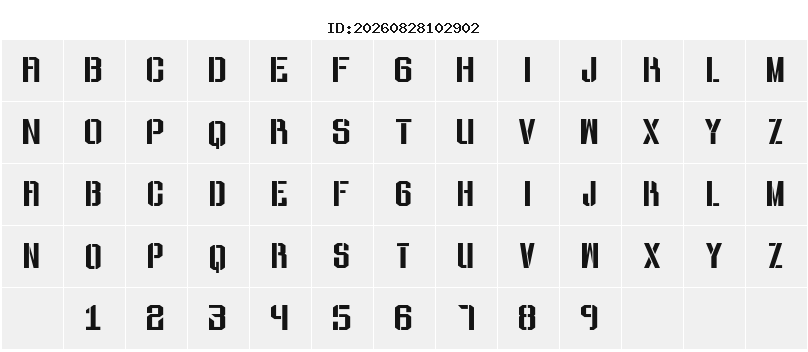
ToughGuy Preview
• Font Name: ToughGuy
• Font Style: Stencil
• Designer: Matthew Napolitano
About ToughGuy.otf
ToughGuy.otf is a modern, elegant sans-serif font designed for ultimate readability and visual harmony. Perfect for branding, headlines, web design, and print materials.